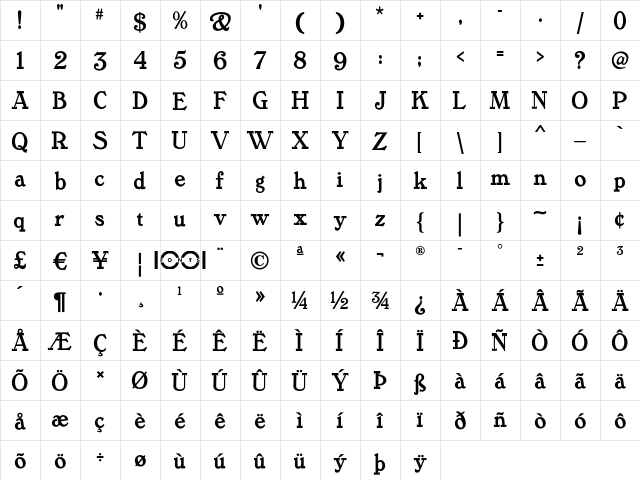
Tanglewood Tales NF Regular
| Foundry | Nick's Fonts |
| Designer | Nick Curtis |
Design Context for Tanglewood Tales NF Typeface
Tanglewood Tales NF taps into classic Western woodtype traditions — bold, characterful, and impossible to ignore.
A natural fit for craft spirits, ranch branding, rodeo events, and Americana-inspired design work.
Font Pairing: Combine Tanglewood Tales NF with a simple slab or neutral sans — period-accurate companions reinforce the vintage feel without competing for attention.
Pro Tip: Use Tanglewood Tales NF for short, impactful bursts of text — it shines in poster headlines and product names rather than extended copy.